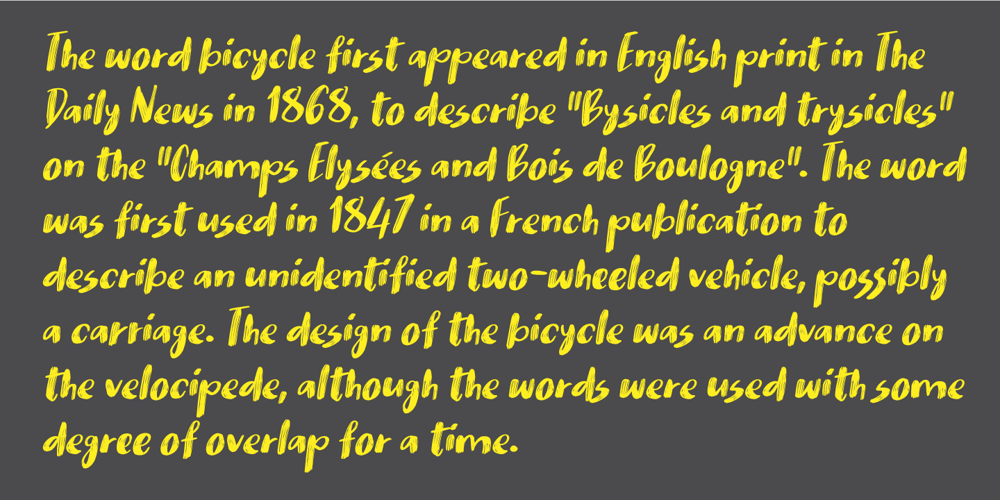
Nikotinus Font Family was designed by published by Bogstav. Nikotinus contains 2 styles and family package options. Need something lovely for something lovely? Nikotinus has that feeling of “something good is about to happen” – use the font for your postcard, poster or even wedding invitation! To sweeten things, I have included ligatures for double letters and alternate letters for all lowercase. Of course, multilingual support is also included!